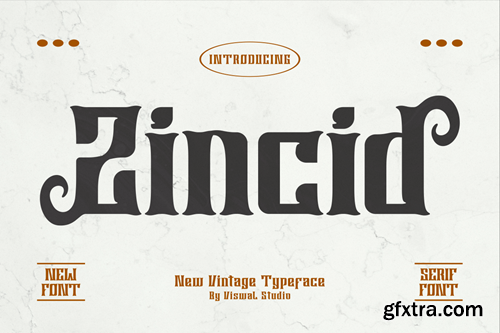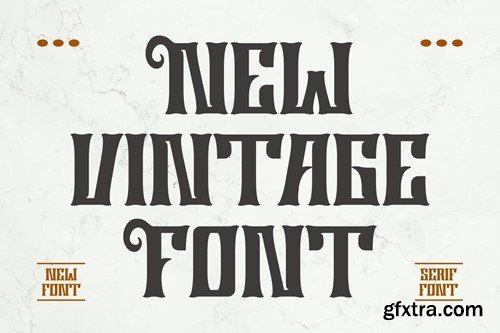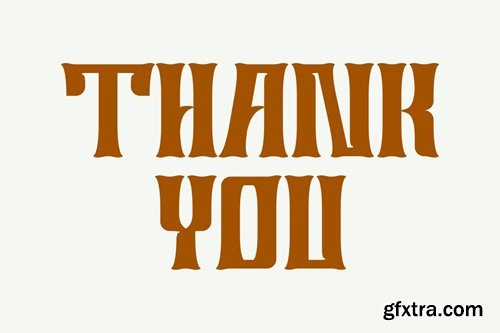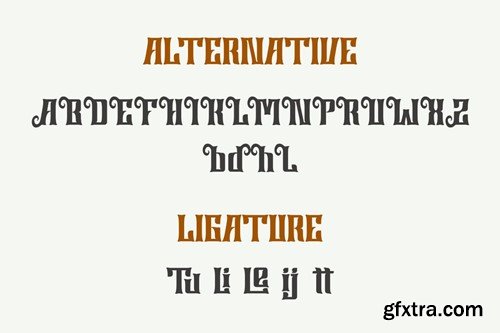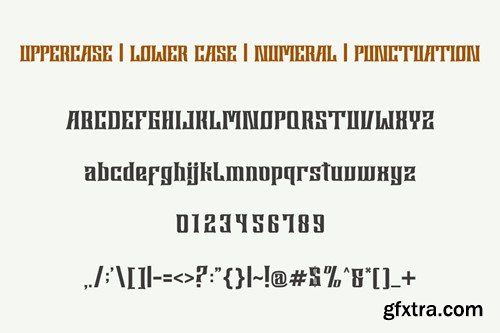
Zincid - Vintage Font
Presenting Zincid - Font is suitable for badge, labels, logo, branding, magazine, poster and etc. Our fonts have Uppercase & Lowercase, Numeral & Punctuation, Multilingual support and Opentype Features. For Amazing designs you can mix with other fonts as a complement. File Includes Happy creating with our fonts. Regards, viswal studios